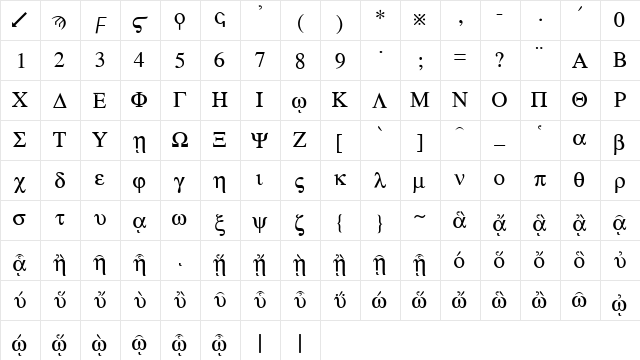
CSL-Greek Medium Regular
Design Context for CSL-Greek Medium Typeface
CSL-Greek Medium takes a measured approach to typography — its balanced proportions and neutral character make it a reliable workhorse for both digital and print work.